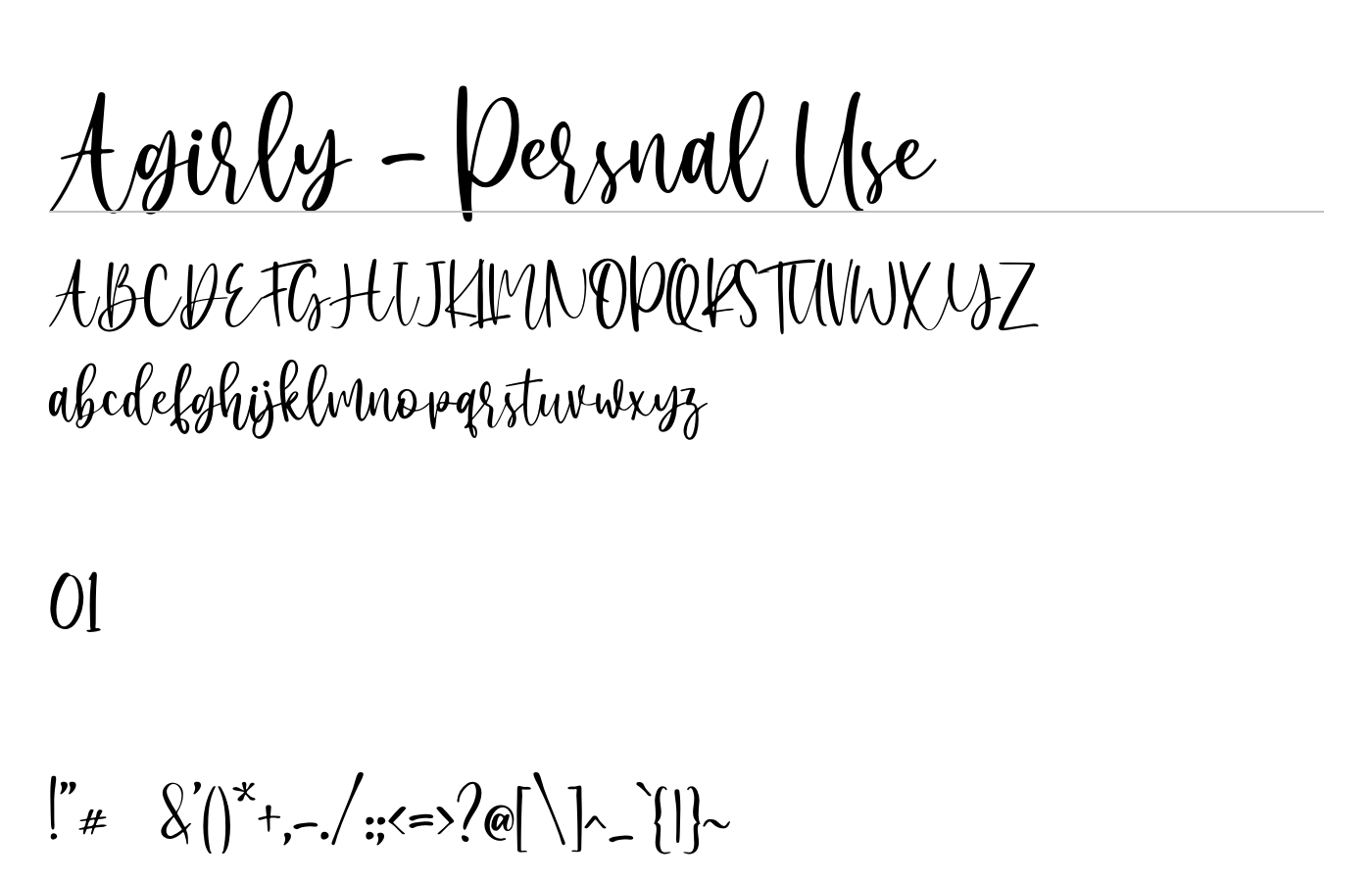
Agirly is a playful and elegant handwritten script font featuring slender, flowing letterforms with a casual yet refined feel. Its natural, slightly uneven strokes and whimsical curves make it perfect for adding a personal, creative touch to invitations, branding, and feminine designs. This font works beautifully in headlines and decorative uses where a warm, approachable style is desired.
Agirly - Persnal Use Font
| Font family | Agirly - Persnal Use Font |
| Designer | Siti Nuruniyah Kholishoh |